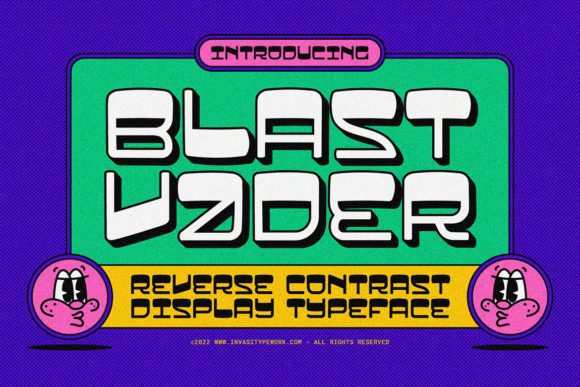
Introducing Blastvader Font: The Ultimate Retro Display Font for Creative Projects
In the world of typography, fonts play a crucial role in conveying the tone and personality of a brand or design. With the numerous font options available, it can be challenging to find the perfect one that stands out from the crowd. However, if you’re looking for a unique and eye-catching font, look no further than Blastvader Font. In this article, we’ll explore the features and benefits of Blastvader Font, and how it can elevate your creative projects.
What is Blastvader Font?
Blastvader Font is a reverse contrast retro display font that boasts a distinctive fat rounded shape. Its unusual design makes it an excellent choice for headlines, flyers, posters, greeting cards, product packaging, book covers, logotypes, and album covers. The font’s retro vibe and casual feel make it perfect for designers who want to add a touch of nostalgia and playfulness to their work.
Key Features of Blastvader Font
- Reverse Contrast Design: Blastvader Font features a unique reverse contrast design, which sets it apart from traditional fonts. The fat rounded shape of the glyphs gives the font a distinctive look that’s sure to grab attention.
- Retro Display Font: The font’s retro vibe makes it perfect for designs that require a nostalgic feel. Whether you’re working on a vintage-inspired project or want to add a touch of classic charm, Blastvader Font is an excellent choice.
- Alternates for Added Fun: Blastvader Font comes with alternates that can add more fun and personality to your projects. The alternates offer a range of options for customizing your text, allowing you to experiment with different styles and effects.
- Legibility and Readability: Despite its casual feel, Blastvader Font prioritizes legibility and readability. The font’s design ensures that your text remains clear and easy to read, even at smaller sizes.
Use Cases for Blastvader Font
Blastvader Font is a versatile font that can be used in a variety of creative projects. Here are some use cases where Blastvader Font shines:
- Headlines and Titles: The font’s bold and eye-catching design makes it perfect for headlines and titles. Use Blastvader Font to create attention-grabbing headlines that draw readers in.
- Flyers and Posters: Blastvader Font is ideal for flyers and posters that require a bold and playful design. The font’s retro vibe and casual feel make it perfect for promoting events, products, or services.
- Greeting Cards and Invitations: Add a touch of personality to your greeting cards and invitations with Blastvader Font. The font’s unique design makes it perfect for creating custom cards and invites that stand out.
- Product Packaging: Blastvader Font can be used to create eye-catching product packaging that reflects your brand’s personality. The font’s bold design makes it perfect for labels, tags, and other packaging materials.
- Book Covers and Logotypes: The font’s distinctive design makes it an excellent choice for book covers and logotypes. Use Blastvader Font to create a memorable brand identity that stands out.
Why Choose Blastvader Font?
With so many fonts available, why choose Blastvader Font? Here are some reasons why Blastvader Font stands out:
- Unique Design: Blastvader Font boasts a unique reverse contrast design that’s sure to grab attention. The font’s distinctive look makes it perfect for designers who want to create something different.
- Versatility: Blastvader Font is a versatile font that can be used in a variety of creative projects. Whether you’re working on a headline, flyer, or product packaging, the font’s design adapts well to different contexts.
- Legibility and Readability: Despite its casual feel, Blastvader Font prioritizes legibility and readability. The font’s design ensures that your text remains clear and easy to read, even at smaller sizes.
- Easy to Use: Blastvader Font is easy to use and comes with alternates that can add more fun and personality to your projects.
In conclusion, Blastvader Font is an excellent choice for designers who want to add a touch of nostalgia and playfulness to their work. The font’s unique reverse contrast design, retro vibe, and casual feel make it perfect for a variety of creative projects. With its versatility, legibility, and ease of use, Blastvader Font is a valuable addition to any designer’s font library.
- What is Blastvader Font?: Blastvader Font is a reverse contrast retro display font with a distinctive fat rounded shape.
- What is Blastvader Font used for?: Blastvader Font is ideal for headlines, flyers, posters, greeting cards, product packaging, book covers, logotypes, and album covers.
- Is Blastvader Font legible?: Yes, Blastvader Font prioritizes legibility and readability, making it easy to read even at smaller sizes.